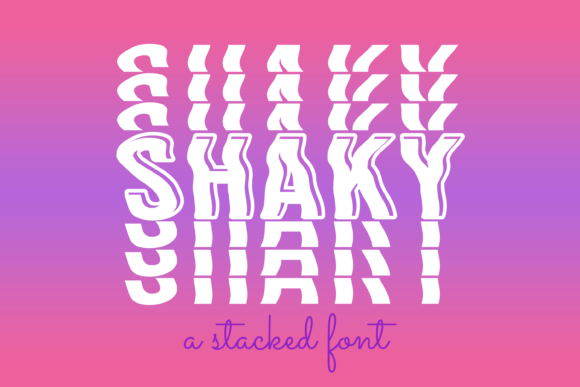
Introducing Shaky Font, a stunning display font brimming with charm and personality. This font is a perfect fit for Cricut writing and various creative projects yearning for a dash of allure. Whether you are an artist, a crafter, or simply someone looking to add a unique touch to your designs, Shaky Font will captivate you with its undeniable beauty.
With its enchanting curves and playful strokes, Shaky Font radiates an irresistible charm that will leave your audience spellbound. It's more than just a font; it's an experience that ignites imagination and fuels creativity. Unleash your inner artist and let Shaky Font guide you to create captivating designs that tell a story.
From whimsical invitations and greeting cards to eye-catching social media posts and website designs, Shaky Font flawlessly adapts to any project. Its versatility knows no bounds, making it the perfect choice for crafting unique logos, T-shirt designs, and even custom vinyl decals. The possibilities are endless, and the only limit is your imagination.
The world is waiting to witness your creative brilliance. Embrace Shaky Font and embark on a journey of artistic exploration. Let your ideas flourish and your designs shine with a font that captures the essence of creativity.